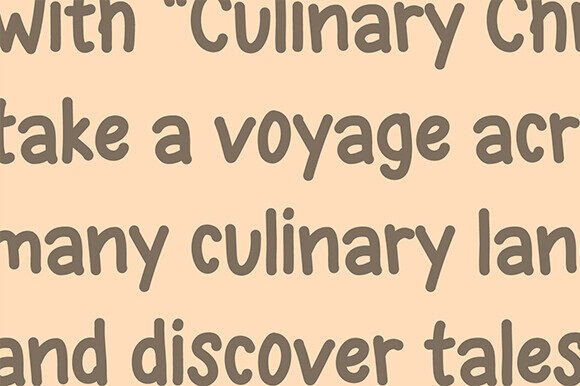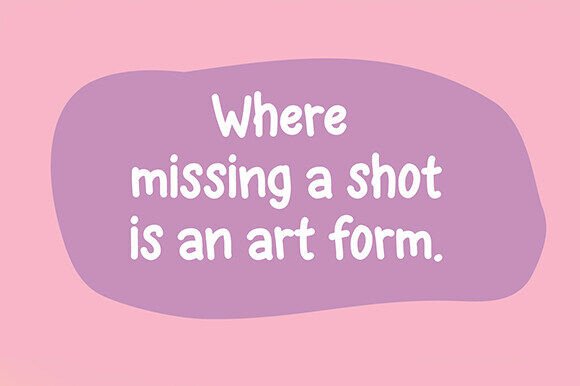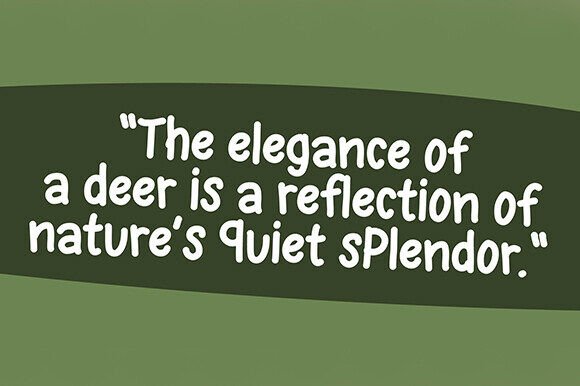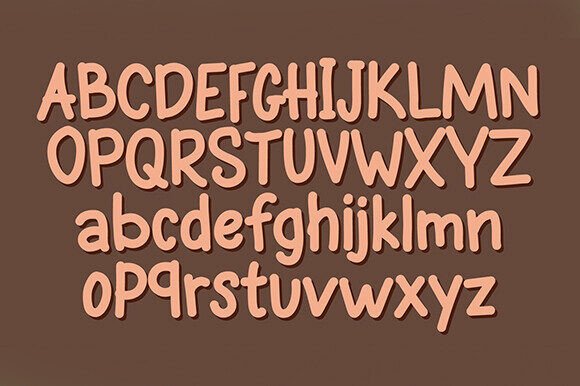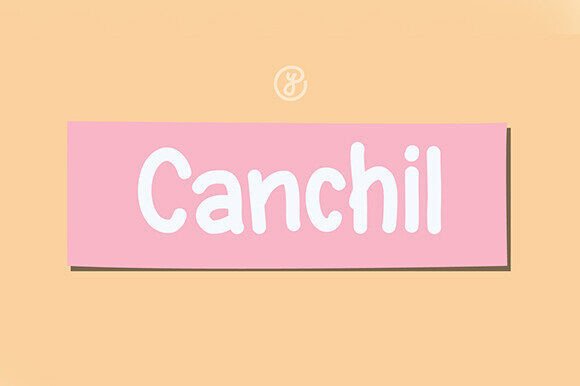
Introducing Canchil: The Charming Monoline Handwritten Font
Are you on the lookout for a font that embodies the perfect blend of modern sophistication and organic charm? Look no further than Canchil, a delightful monoline handwritten font that captures the essence of the mythical mouse-deer. With its unique fusion of modernist flair and natural texture, Canchil is sure to elevate your creative projects to new heights.
The Inspiration Behind Canchil
The name “Canchil” is derived from the mythical mouse-deer, a creature known for its agility and endearing allure. This font ingeniously mirrors these characteristics, with strokes that flow as naturally as a lively mouse deer skittering through the forest. The moniker “Canchil” also encapsulates an invigorating mantra, “Can Chill,” reflecting a balance of sophistication and leisurely chicness.
Key Features of Canchil Font
• Monoline Handwritten Style: Canchil boasts a beautiful, monoline handwritten style that exudes modern sophistication and elegance.
• Organic Texture: The font features a natural, organic texture that adds a touch of warmth and personality to your designs.
• Modernist Flair: Canchil’s modernist flair makes it perfect for designers looking to add a touch of contemporary chic to their projects.
• Versatile: This font is incredibly versatile, making it suitable for a wide range of creative ventures, from brand identity and whimsical art pieces to motivational sayings and social media content.
Ideal Applications for Canchil Font
Canchil is an excellent choice for various design projects, including:
• Lifestyle, Fashion, and Food/Beverage Brand Identities: Canchil’s unique blend of modern sophistication and organic charm makes it perfect for creating stunning brand identities that stand out from the crowd.
• Informal-Themed Posters, Greeting Cards, and Invitations: Add a touch of whimsy and personality to your informal-themed designs with Canchil’s charming monoline handwritten style.
• Emotive Quotes and Personable Instagram Captions: Canchil is ideal for creating emotive quotes and personable Instagram captions that resonate with your audience.
• Educational Frameworks and Children’s Books: This font is also suitable for educational frameworks and children’s books that embrace nature-centric themes, adding a touch of warmth and personality to your designs.
Benefits of Using Canchil Font
By incorporating Canchil into your design projects, you can:
• Elevate Your Brand Identity: Create a unique and memorable brand identity that stands out from the competition.
• Add a Touch of Whimsy: Infuse your designs with a dash of whimsy and personality, making them more engaging and relatable.
• Convey Sophistication and Leisurely Chicness: Canchil’s balanced blend of modern sophistication and leisurely chicness makes it perfect for conveying a sense of refinement and elegance.
Tips for Using Canchil Font Effectively
To get the most out of Canchil, consider the following tips:
• Experiment with Different Sizes and Colors: Play around with different sizes and colors to find the perfect combination for your design.
• Pair with Other Fonts: Canchil pairs well with other fonts, so don’t be afraid to experiment with different font combinations.
• Use for Body Text or Headings: Canchil is suitable for both body text and headings, making it a versatile addition to your font library.
Author yebhutype
In conclusion, Canchil is a charming monoline handwritten font that offers a unique blend of modern sophistication and organic charm. With its versatility, elegance, and whimsical touch, Canchil is the perfect choice for designers and crafters looking to elevate their creative projects. Whether you’re working on a brand identity, whimsical art piece, or social media content, Canchil is sure to inspire and delight.